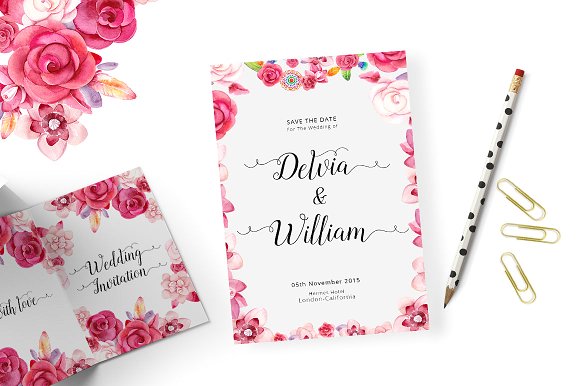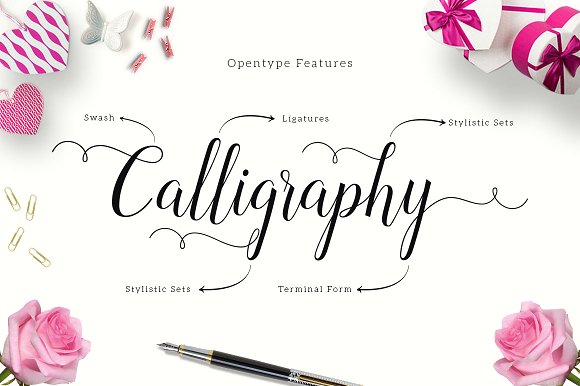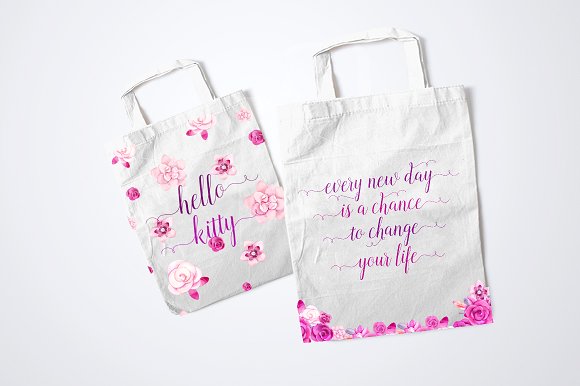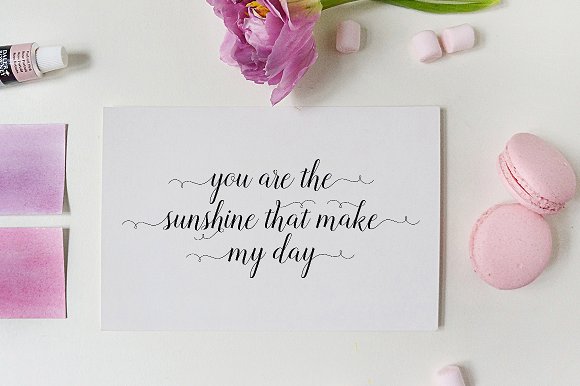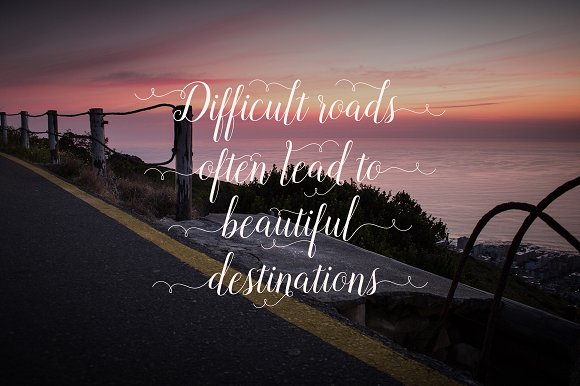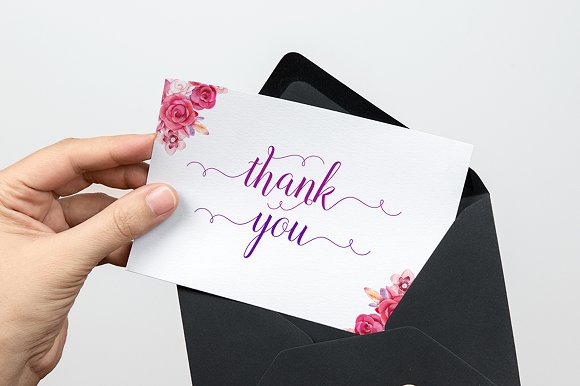
Revallyna Font
About Revallyna Font
Revallyna is a fun & modern calligraphic looking font created by Unicode. It comes packed with 320 unique characters and glyphs.